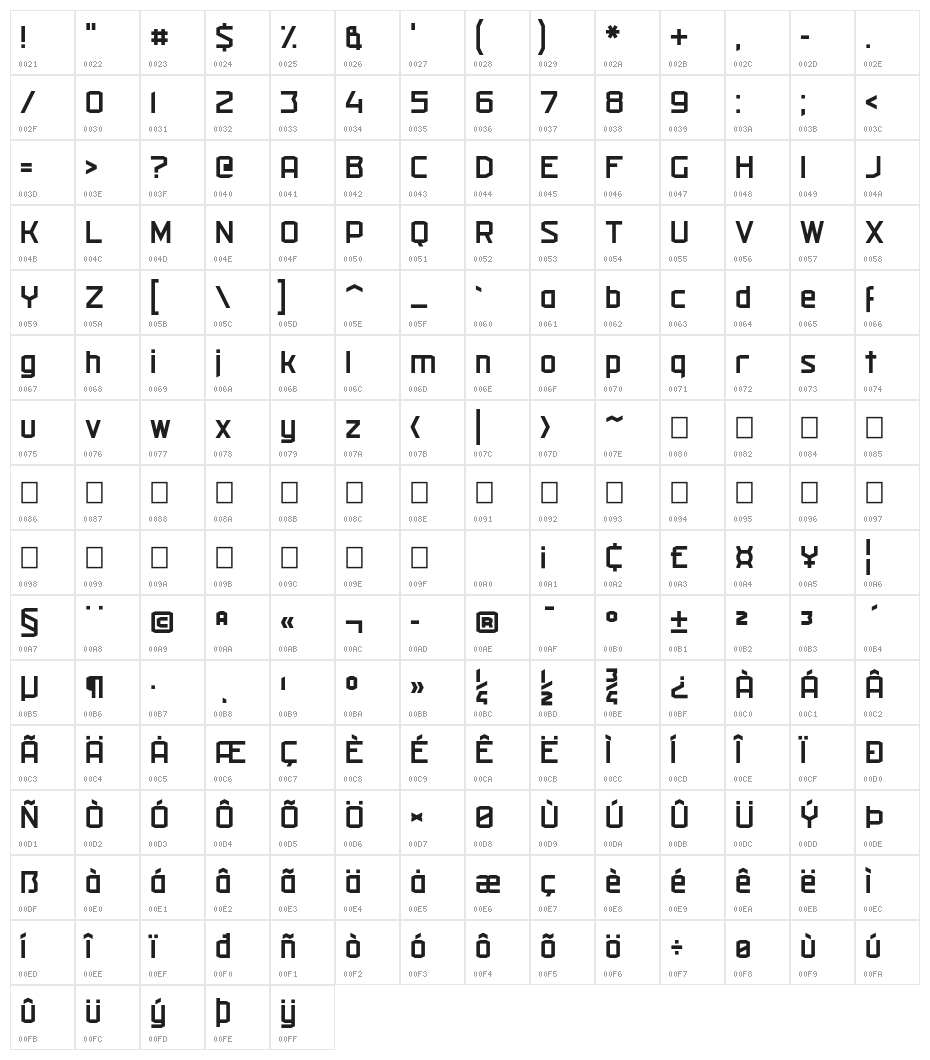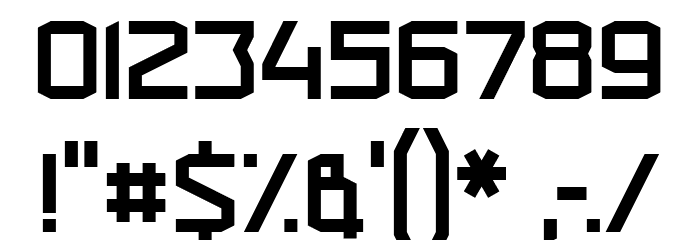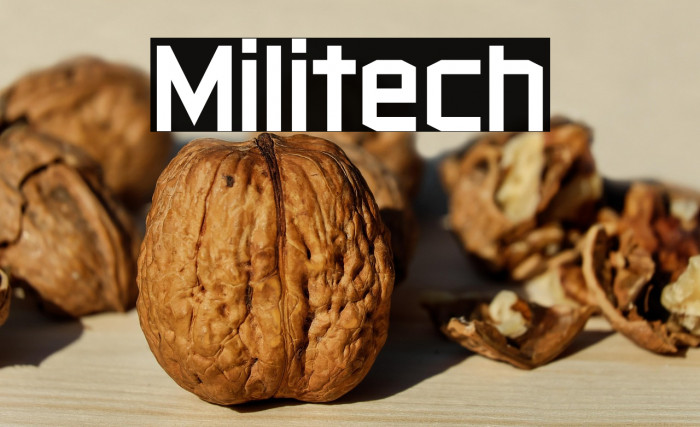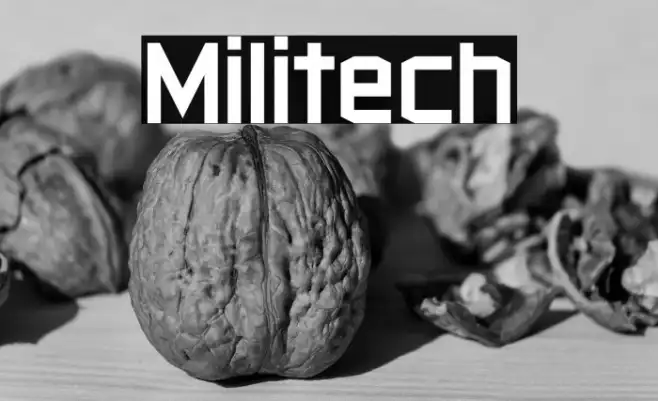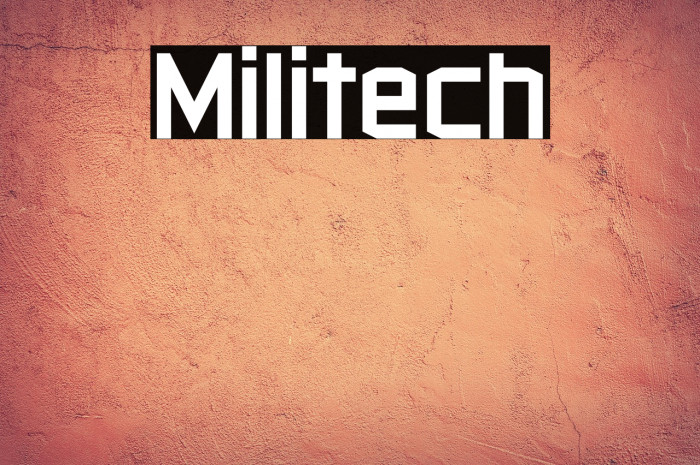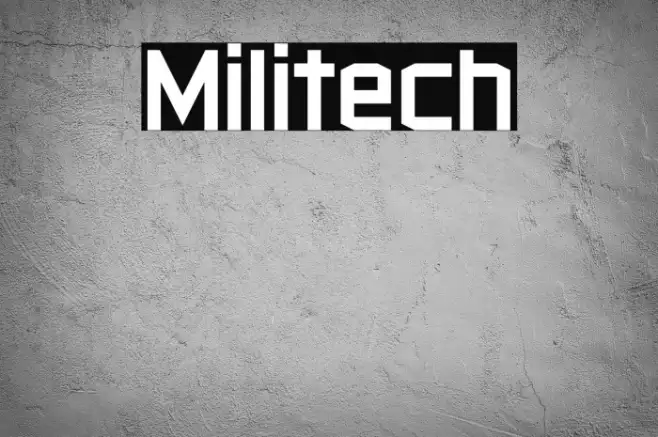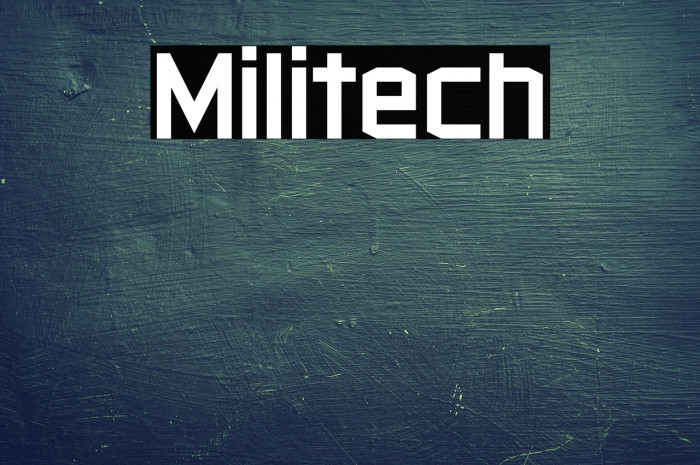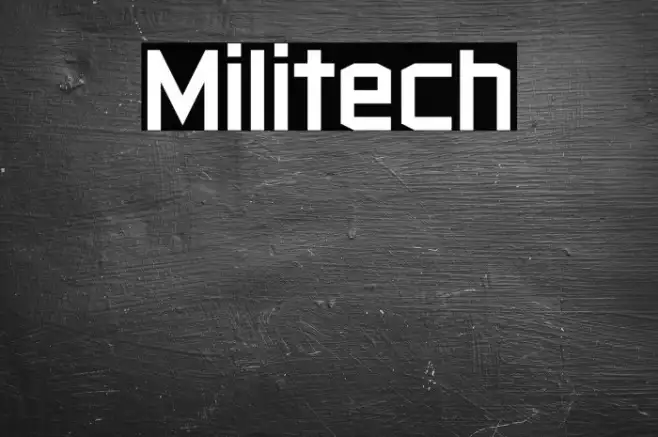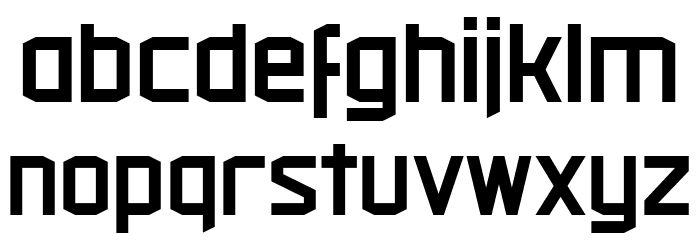
Militech Font
Militech Description
This font features a bold, geometric design with a futuristic and technical aesthetic. The characters are constructed with sharp angles and straight lines, giving it a modern and industrial feel. The uppercase and lowercase letters maintain a consistent height, contributing to a uniform appearance. The numerals and special characters follow the same angular style, ensuring visual coherence across all elements. The font's design is reminiscent of digital or technological themes, making it suitable for projects that require a contemporary and edgy look. Its strong presence and clear readability make it ideal for attention-grabbing headlines or branding materials.
| Proposed Projects | Ideal for technology branding, video game titles, sci-fi movie posters, and digital interfaces. |